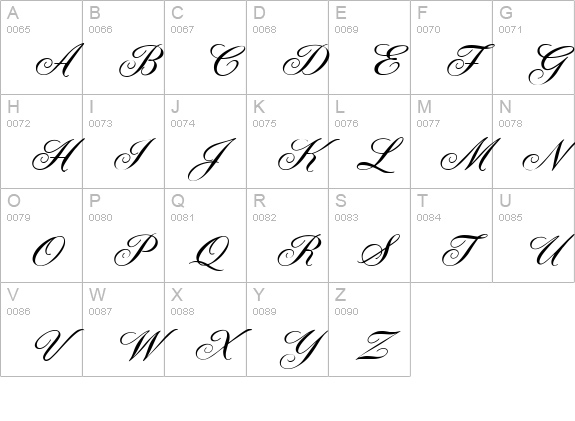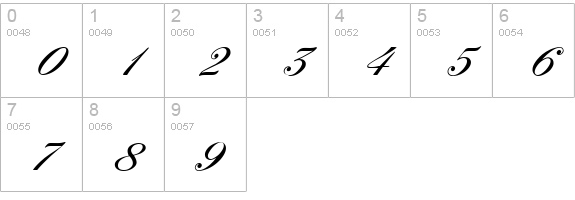
Yorkshire-Regular is the standard, neutral variant in the Yorkshire typeface family \xE2\x80\x94 well suited to general body text, paragraphs, and standard typographic work.
Yorkshire-Regular is a classic and timeless font that exudes elegance and sophistication. With its clean lines and balanced proportions, this versatile typeface is perfect for a wide range of design projects, from invitations to branding to editorial layouts. The warm and inviting feel of Yorkshire-Regular makes it ideal for conveying a sense of tradition and authenticity, while still maintaining a modern edge. Best of all, Yorkshire-Regular is available for free download at FontsMarket.com. Whether you're a seasoned designer looking to refresh your font collection or a newcomer eager to experiment with different typefaces, Yorkshire-Regular is the perfect choice. Download it today and add a touch of refinement to your next project.